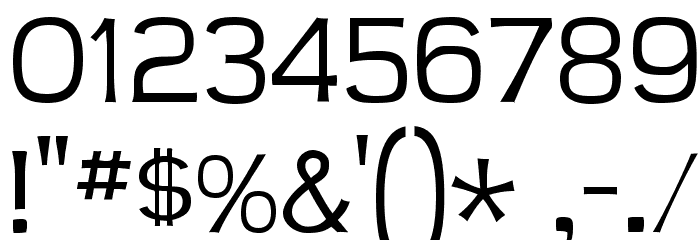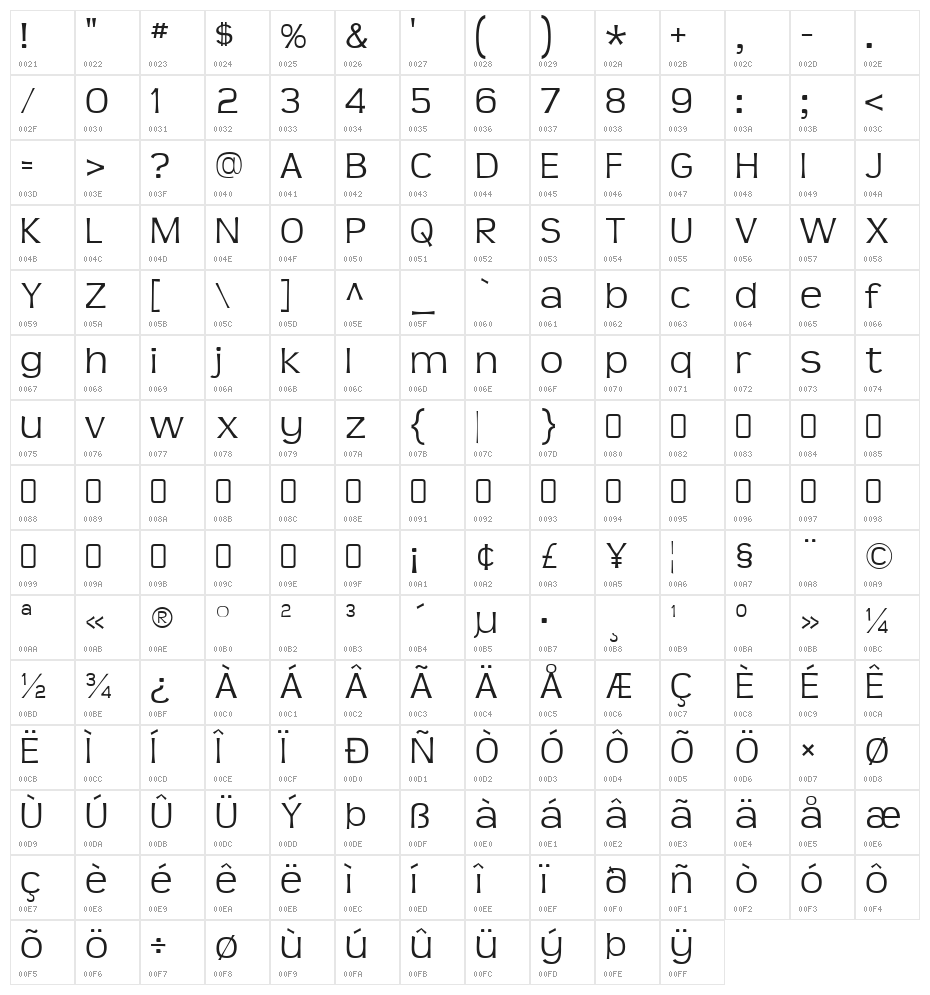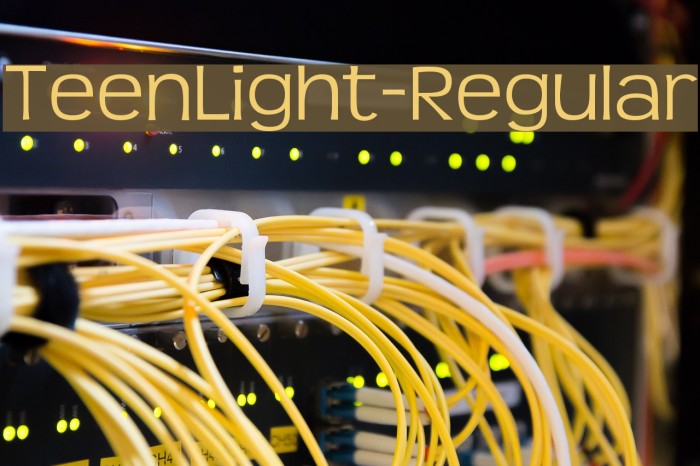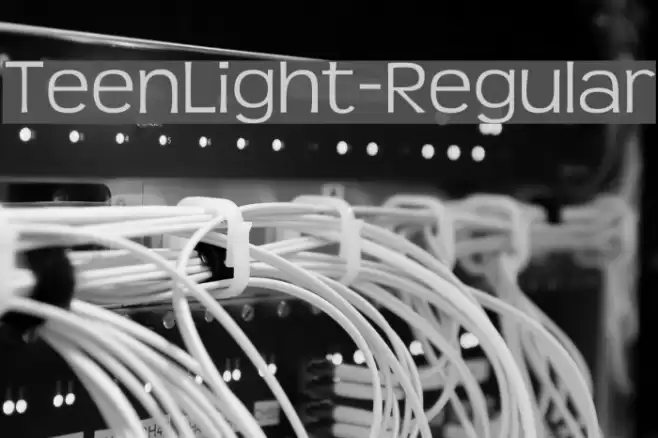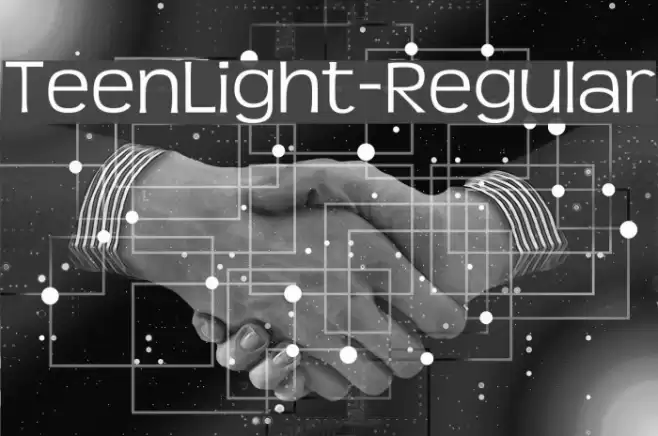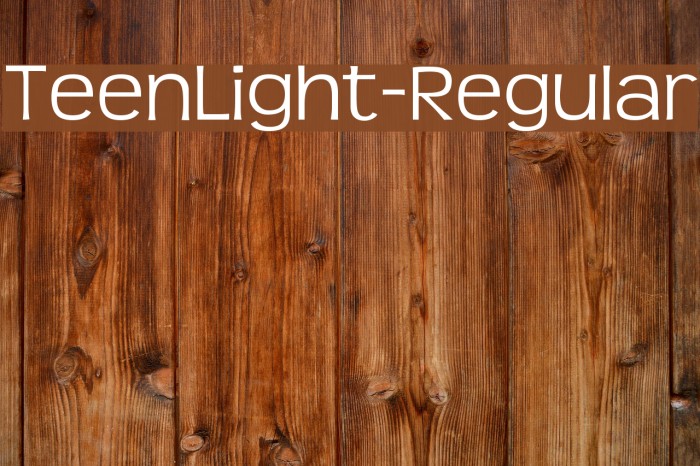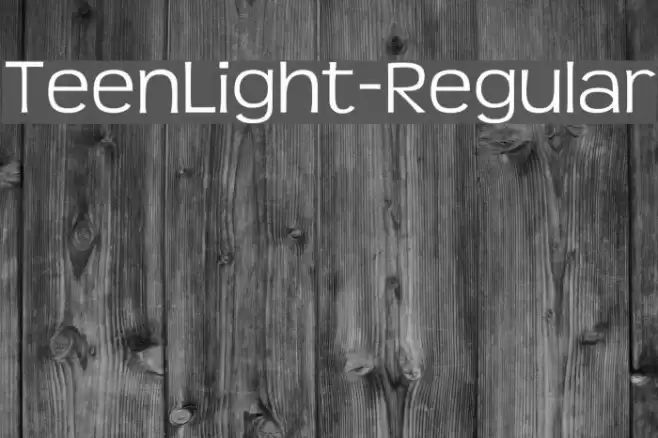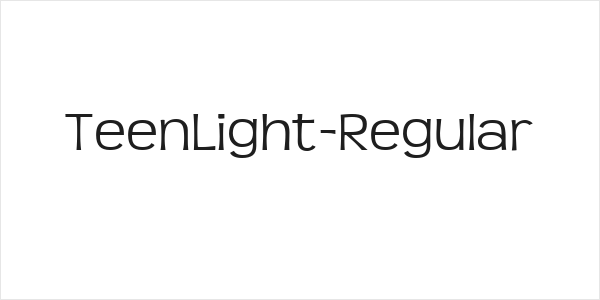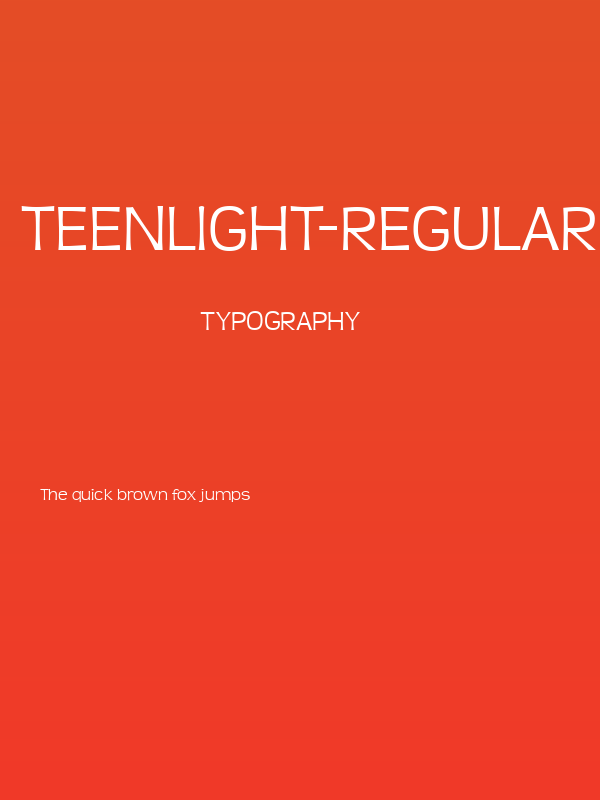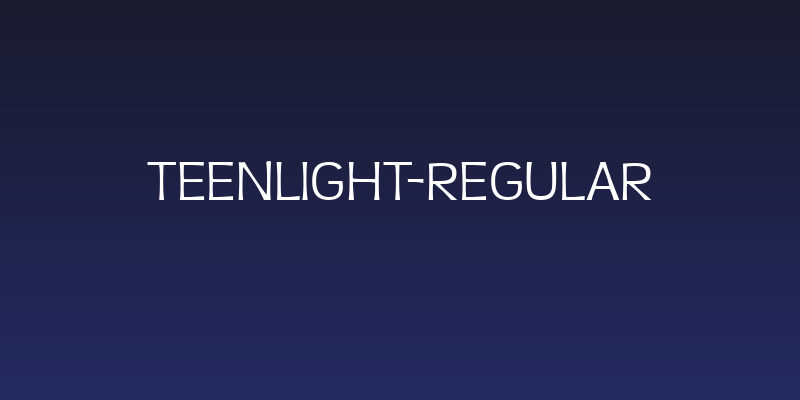
TeenLight-Regular Font
TeenLight-Regular Description
This font exhibits a clean and modern sans-serif style, characterized by its uniform stroke width and geometric shapes. The letters are well-proportioned, with a slight roundness that adds a friendly and approachable feel. The uppercase letters are bold and assertive, while the lowercase letters maintain a consistent height, enhancing readability. The numerals are clear and distinct, making them suitable for both digital and print media. Special characters are well-integrated, maintaining the overall aesthetic of the font. Its simplicity and clarity make it versatile for various design applications.